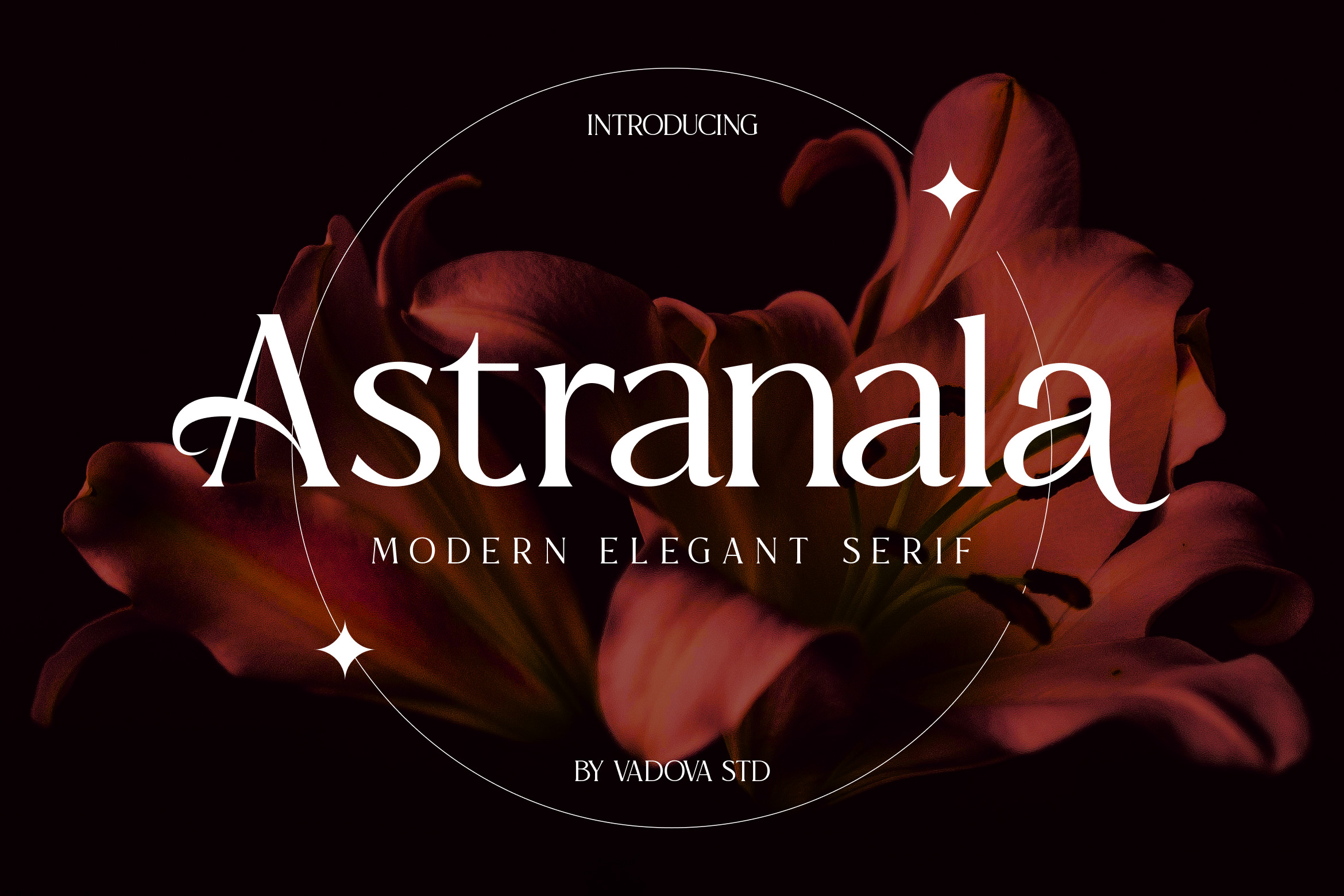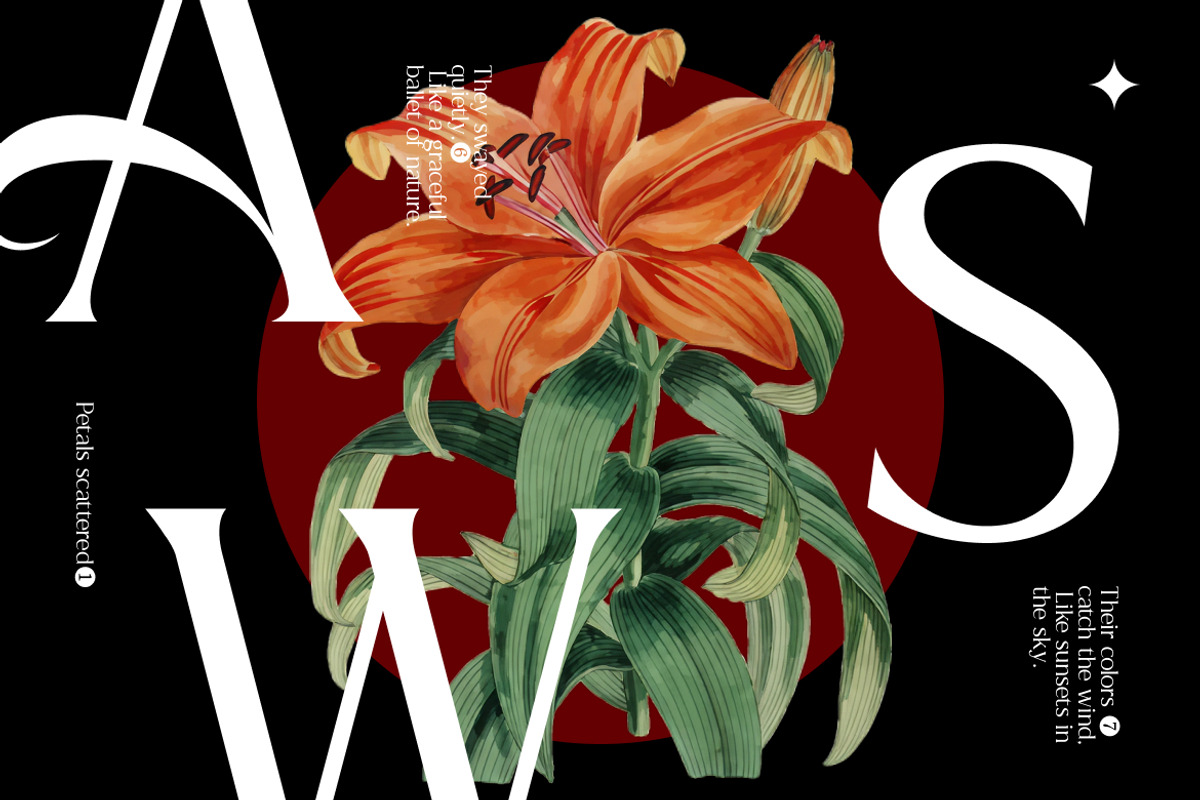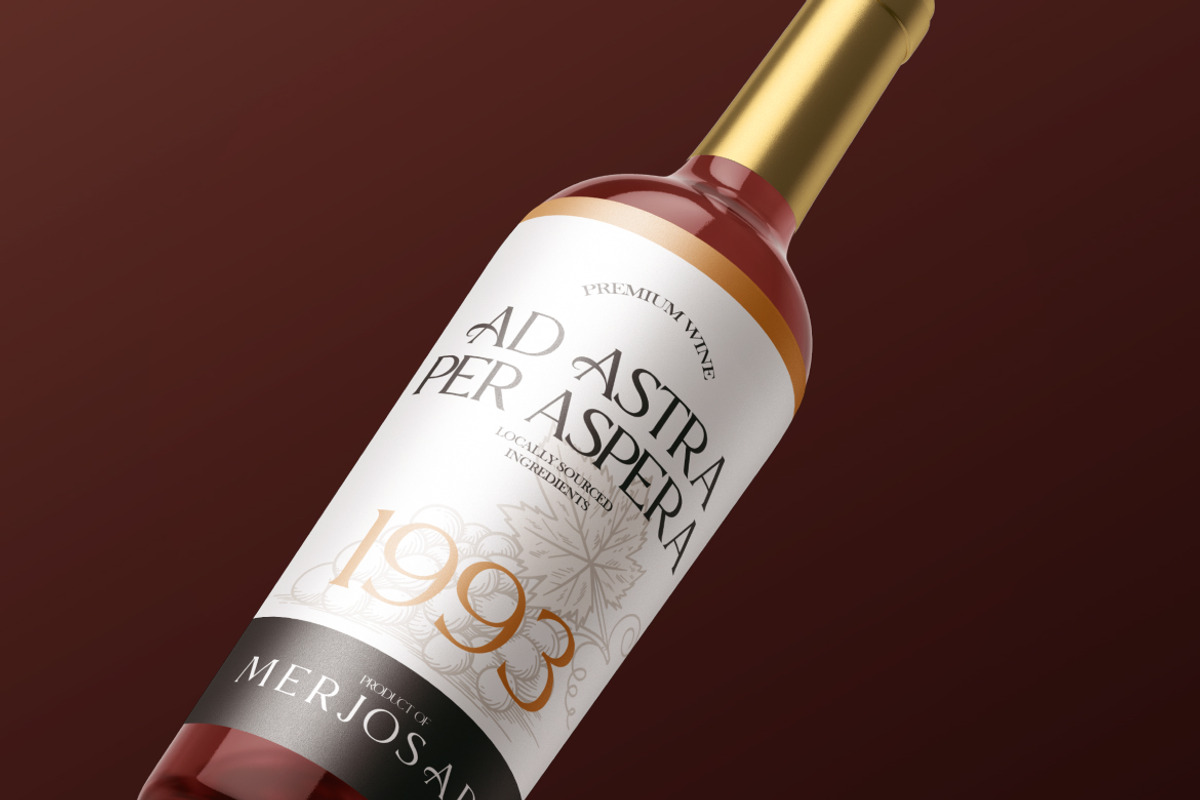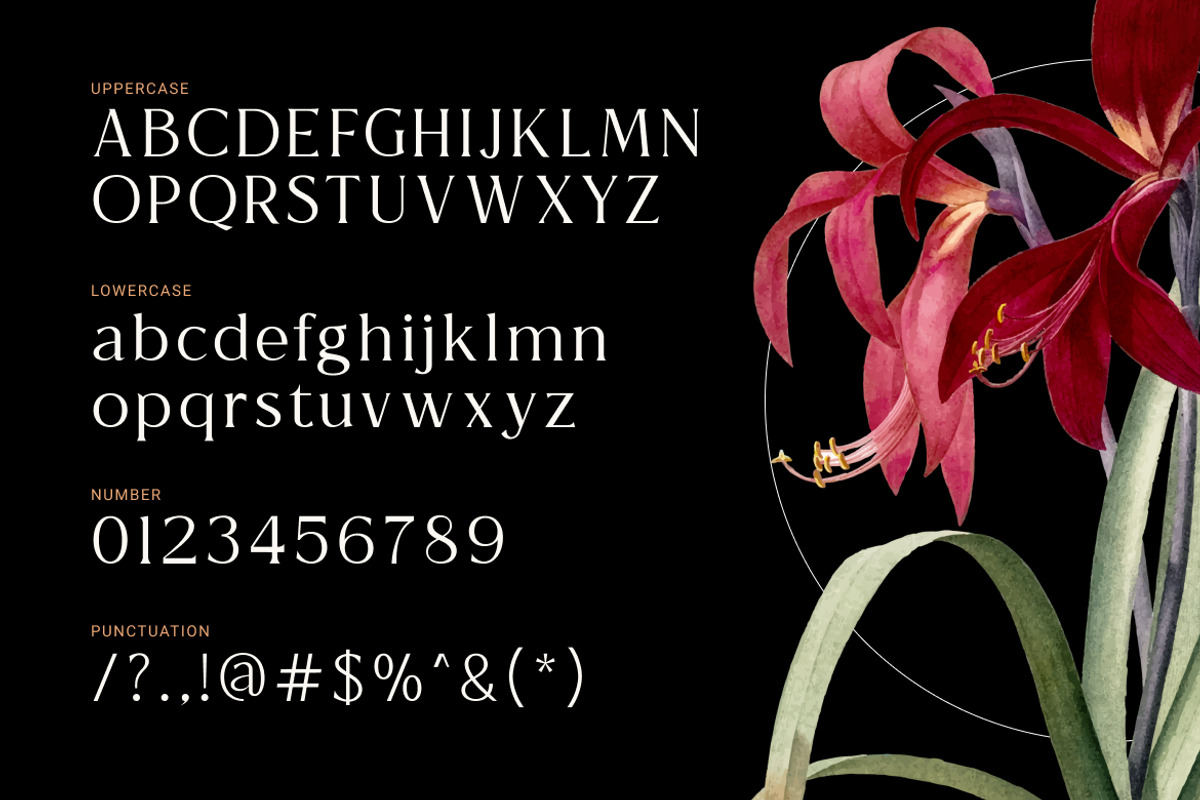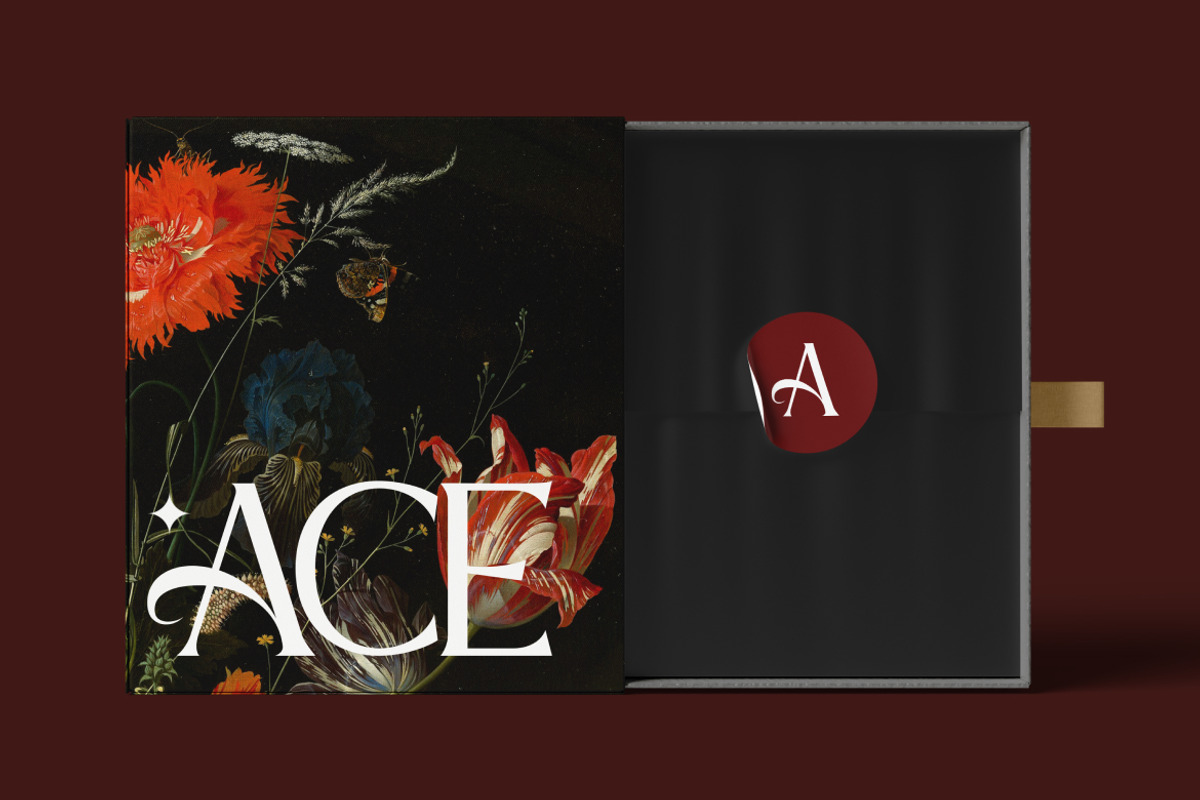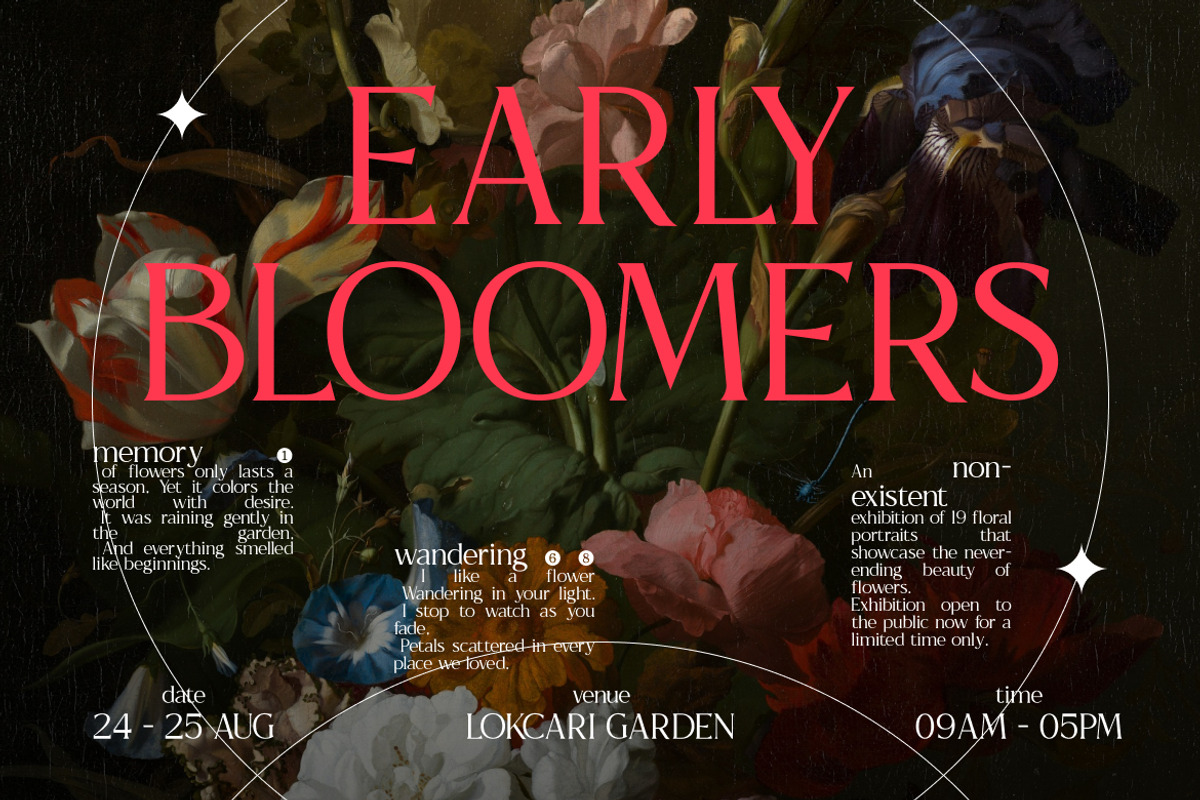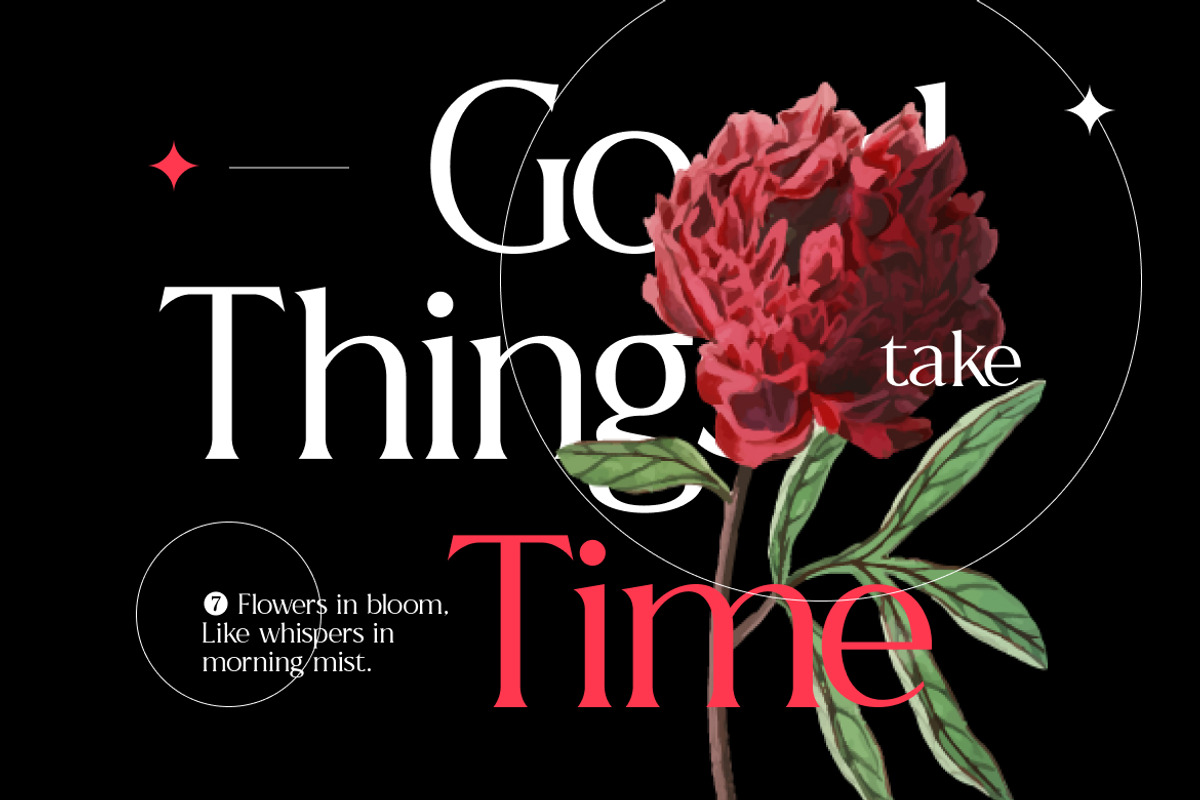
Astranala Modern Elegant Serif Font
Astranala is a refined modern serif typeface that blends classic elegance with contemporary design sensibilities. Built with smooth curves, high contrast strokes, and delicately tapered serifs, Astranala offers a graceful visual rhythm that enhances both display and body text. The font includes uppercase and lowercase letters, numerals, punctuation, and multilingual support providing full typographic functionality for global design projects.
Thoughtfully crafted proportions and subtle stylistic details add sophistication without compromising legibility, making this typeface versatile for a wide range of creative uses. Astranala’s refined aesthetic shines in editorial spreads, branding systems, luxury packaging, wedding and event materials, and premium digital or print compositions. Its balance of timeless charm and modern clarity ensures consistent performance across both large headline settings and elegant paragraph text.
- Elegant serif style with balanced high-contrast strokes
- Graceful curves and soft flared terminals for a refined look
- Classic letterforms with modern adjustments for readability
- Thoughtfully designed ligatures and stylistic alternates
- Smooth rhythm and proportional spacing for optimal text flow
- Luxury brand identities and boutique logo designs
- Editorial spreads and high-end fashion magazines
- Wedding invitations and elegant event stationery
- Premium packaging for cosmetics, perfumes
- Social media templates for beauty, art
Bring elegance to every headline with Astranala’s poised letterforms